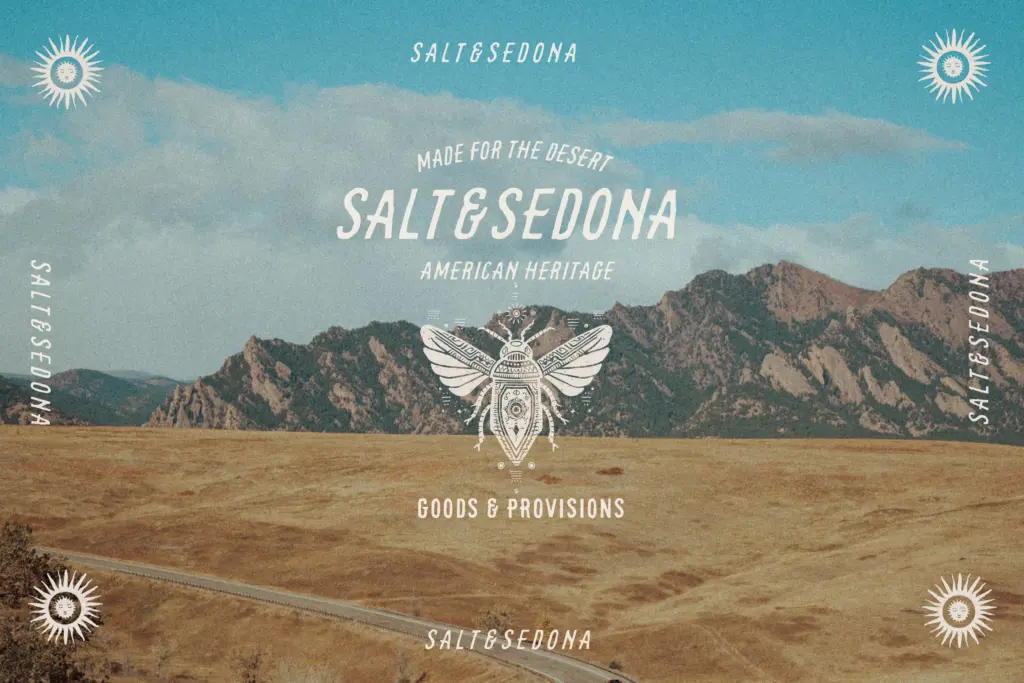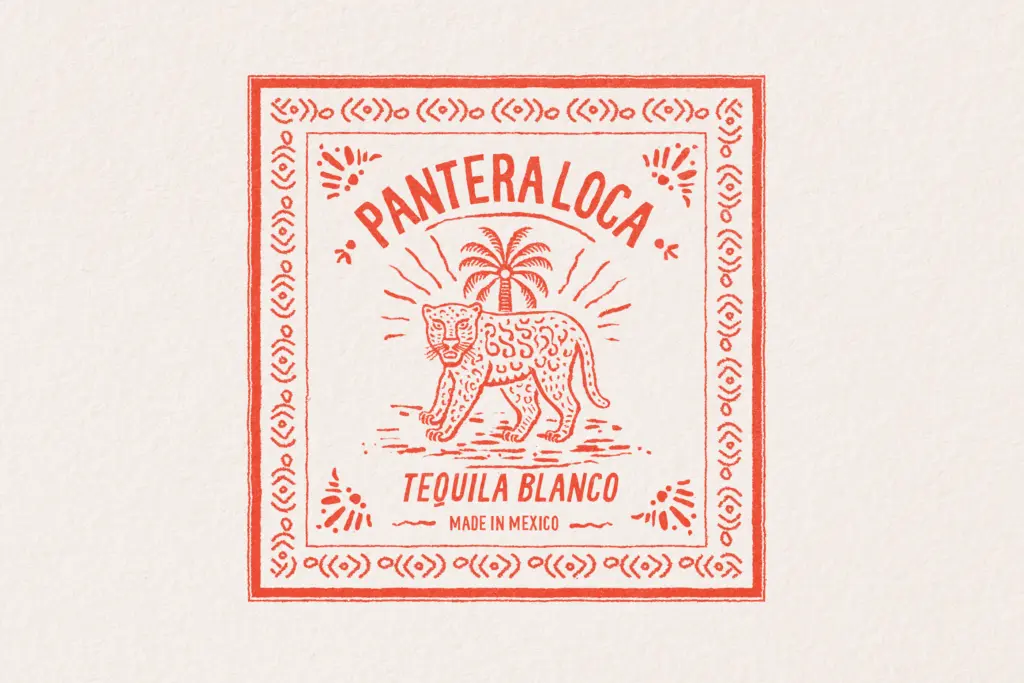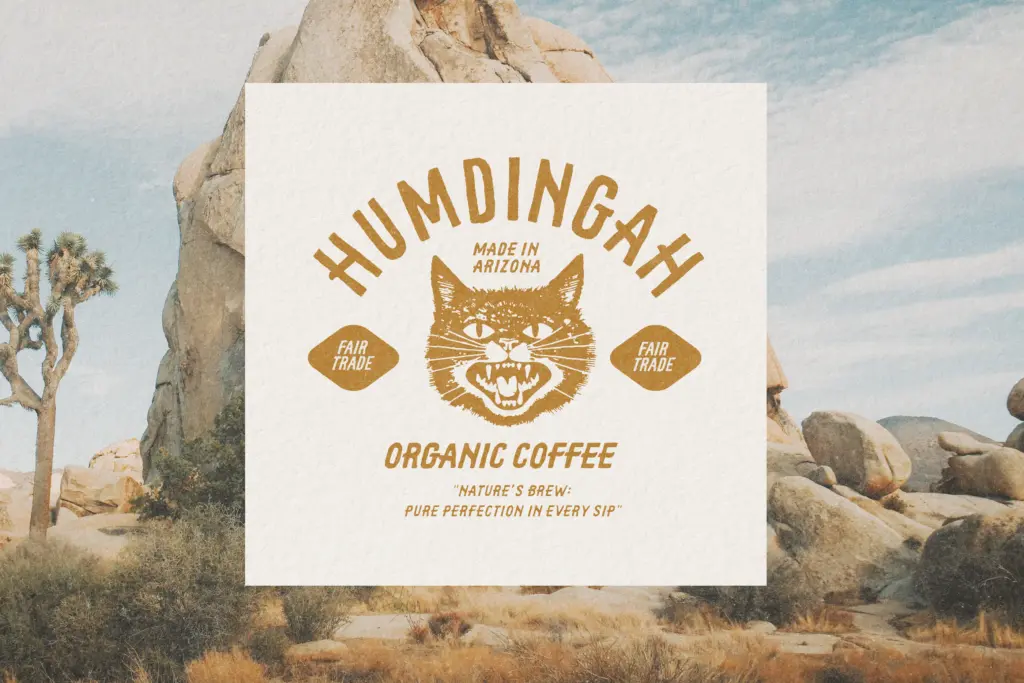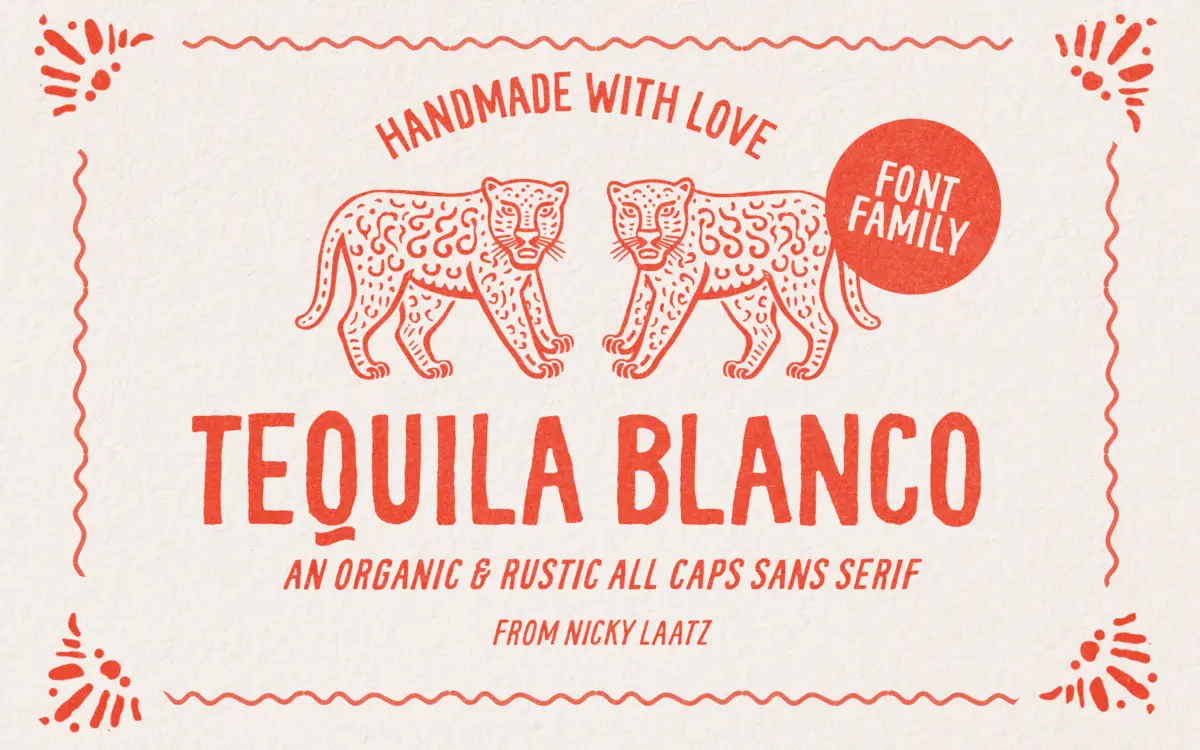
Tequila Blanco is an all-caps display face built around a single idea: worn, hand-drawn marks that look like they were cut into wood or scratched onto a leather label. The strokes are uneven by design, with edges that break and wobble rather than sit clean. Nicky Laatz has leaned into the imperfection rather than smoothing it out, and small curved spurs appear on several letters, giving the set a bit of frontier flourish without tipping into full ornament.
It reads as western more than generically rustic — think saloon signage, tooled leather, sun-bleached timber. That’s a specific mood, and the font commits to it fully. There’s no attempt to be neutral or quiet here. Every letterform has texture, and the roughness is consistent enough that it doesn’t feel randomly generated — it feels drawn by one hand with one tool.
The family ships as sixteen individual weights rather than a single variable file: a Regular, a Light, a Smooth (the same shapes with the rough edges softened down), and a Squat (a shorter, wider build), each with oblique versions, plus a separate Short set that compresses the cap height. That’s a lot of cuts for what is essentially one drawing style, and it gives you real room to move — the Smooth cuts are noticeably calmer and could carry more text than the rougher Regular, while Squat and Short are built for tight lockups where a tall condensed cap would fight the layout.
Because it’s all-caps only, there’s no lowercase to worry about pairing or spacing against — what you see in the caps is the whole alphabet. Language support covers Danish, English, French, German, Norwegian, Portuguese, and Swiss German, so accented characters across those sets are accounted for. Don’t expect a full multilingual glyph set beyond that, and don’t expect numerals or punctuation to carry the same hand-cut flourish as the letters — check those in isolation before committing to a lockup that leans on them.
This is a font for short bursts of text, not paragraphs: logotypes, badge marks, product labels, signage, and the odd punchy headline on a poster or menu. The Squat and Short weights suit circular badge layouts and packaging labels where horizontal space is tight. The Light and Smooth versions are the ones to reach for if you need the roughness dialled back for a slightly more legible lockup, say on a bottle label where the brand name still has to read at a glance from a shelf.
It won’t work as a body-copy or long-form face — the texture that makes it interesting at large sizes turns to noise below a certain point, and the irregular strokes make sustained reading tiring fast. Pair it with a plain, quiet sans or serif for supporting text and let Tequila Blanco do the shouting at the top of the layout. Anyone building a coastal, desert, or countryside-adjacent brand identity will get the most out of it; anyone needing a neutral workhorse display face should look elsewhere.
- Sixteen weight variants give real flexibility from rough to smoothed, tall to squat
- The hand-cut spurs and worn edges give it a distinct, committed point of view
- Squat and Short cuts solve real layout problems for badges and tight lockups
- All-caps only and texture-heavy, so it can't do body copy or long headlines
- The rustic western mood is narrow — it won't suit brands outside that register
Tequila Blanco commits fully to a rugged western mood and delivers a genuinely useful spread of weights to work with. It's a specialist tool for branding and labels, not a general-purpose display face, and its roughness limits where it can go.